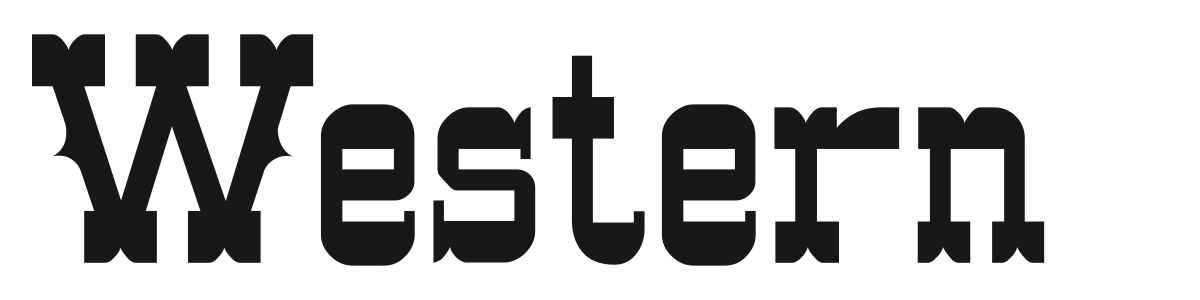
Western
by James L. DeVriese
Western is a bold slab serif display face by James L. DeVriese that delivers exactly the saloon-sign, frontier-town lettering the name suggests. The heavy strokes and decorative details lean into classic cowboy typography without overcomplicating things. Best at large sizes for headlines, posters, and themed branding where you want that unmistakable Old West character.